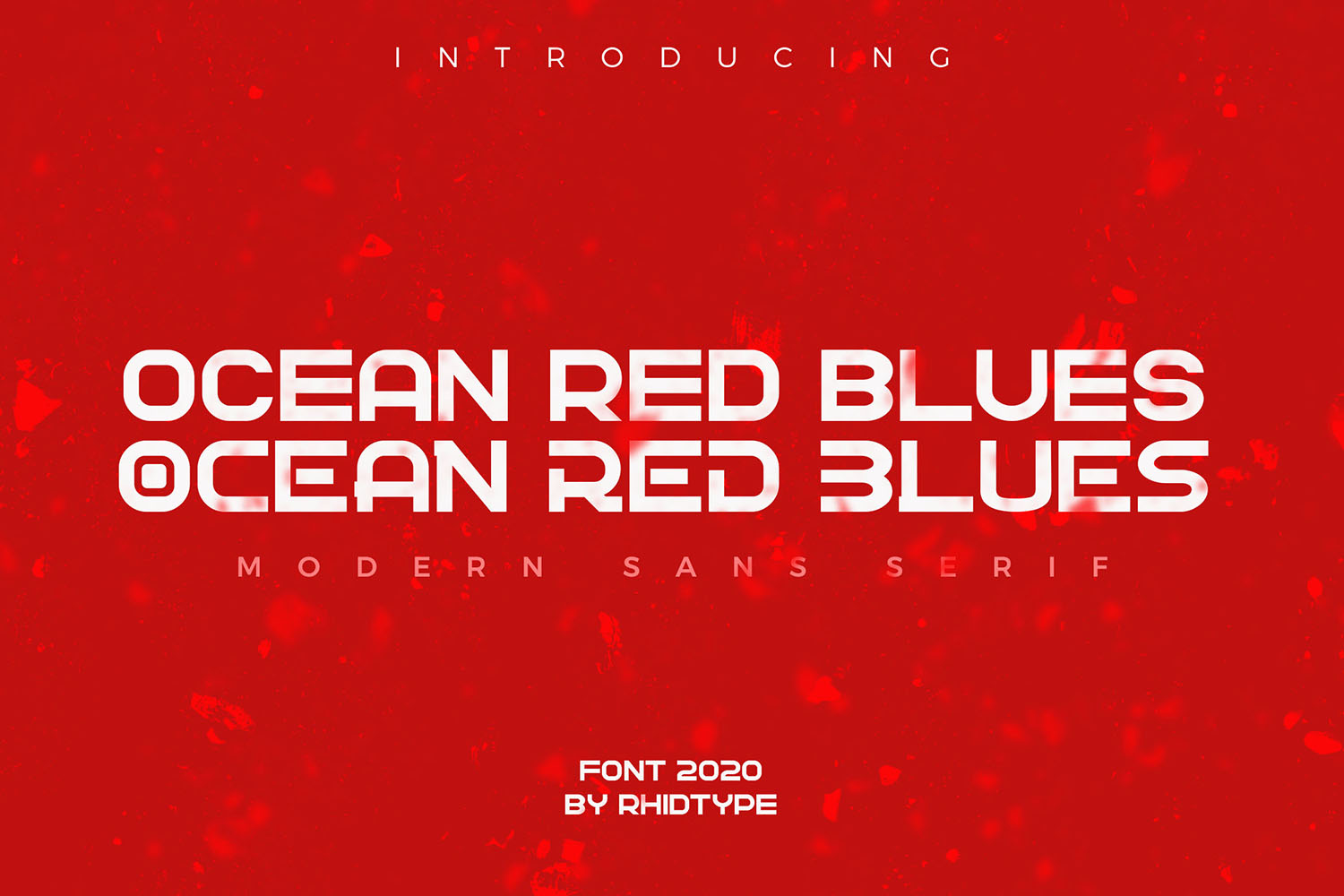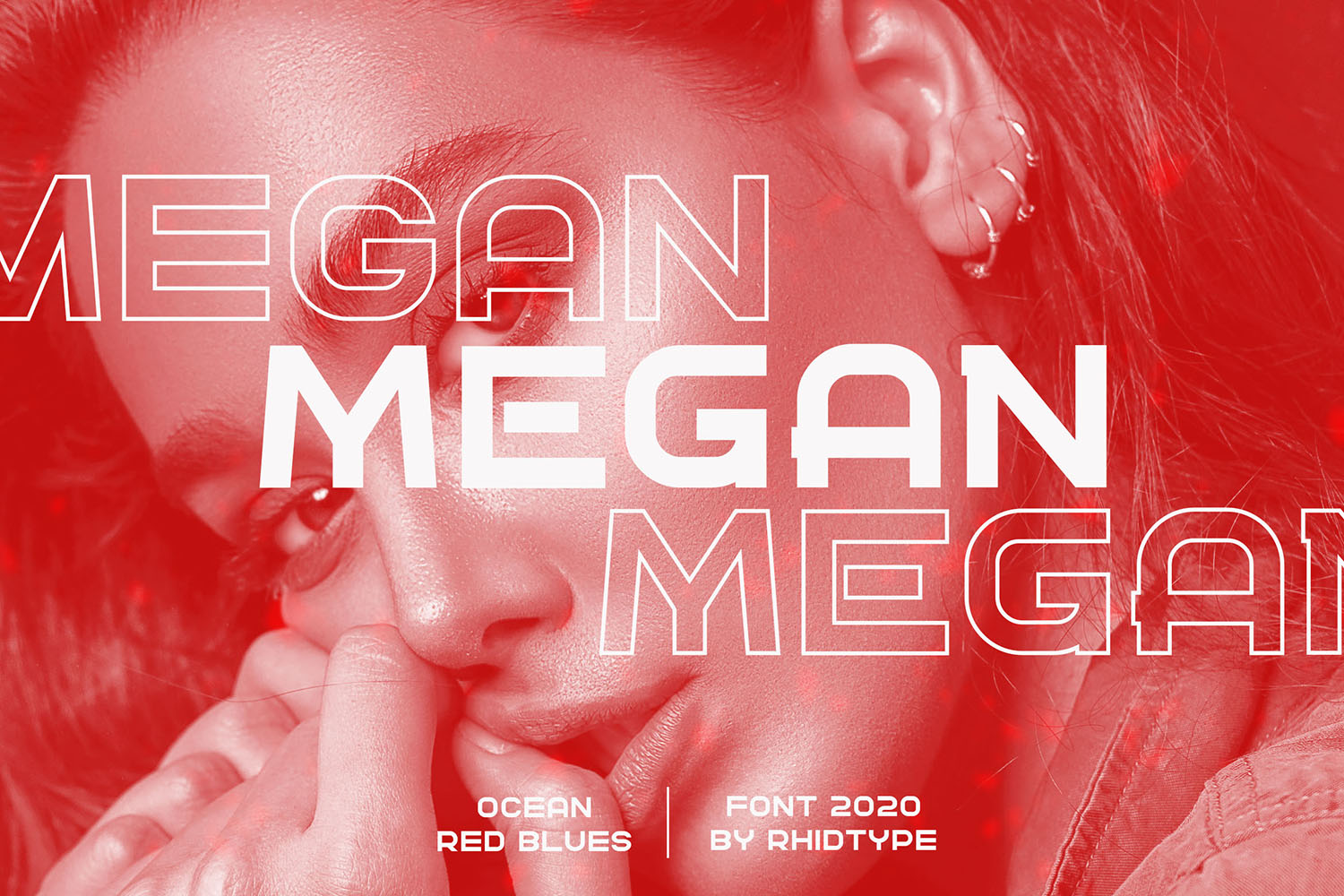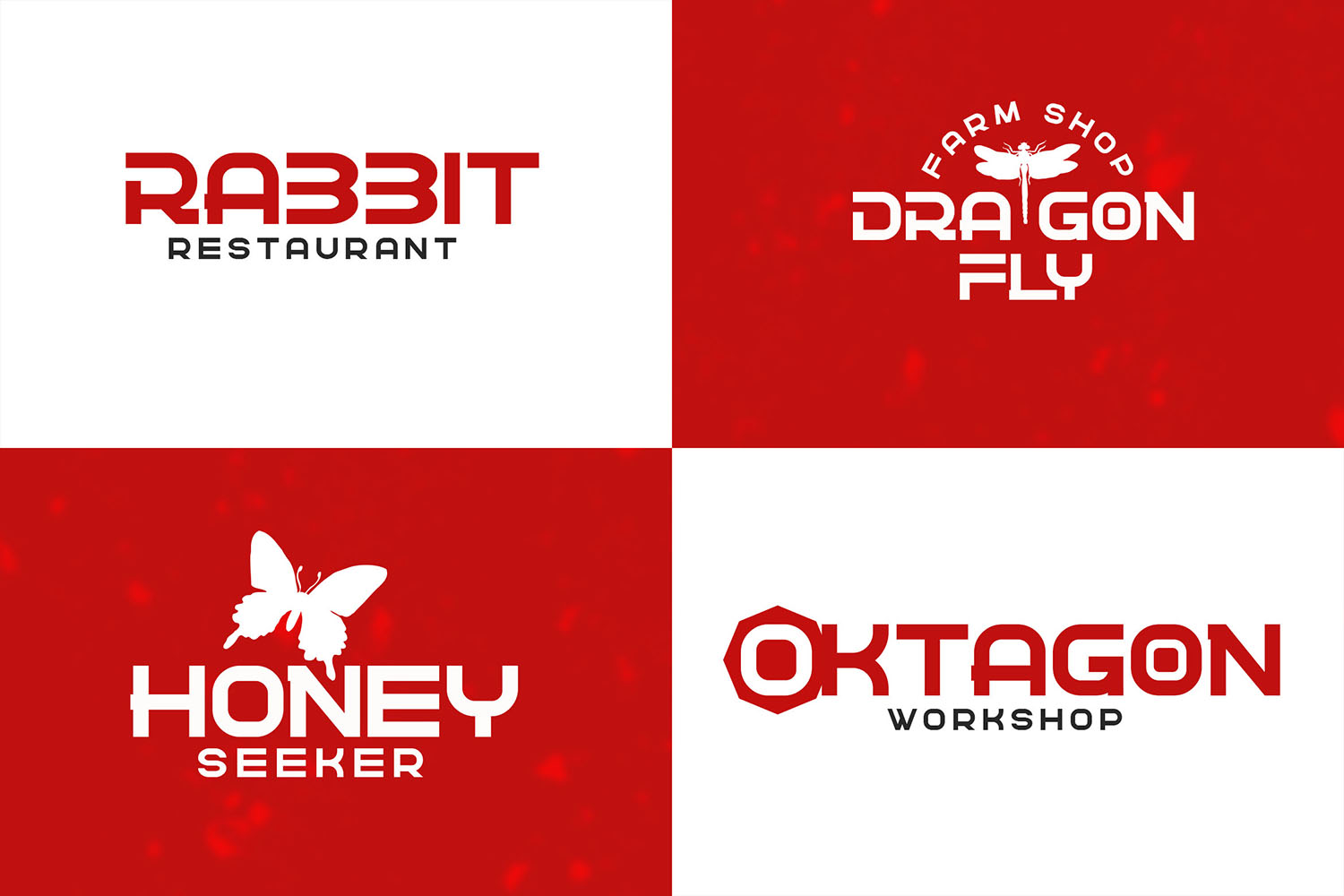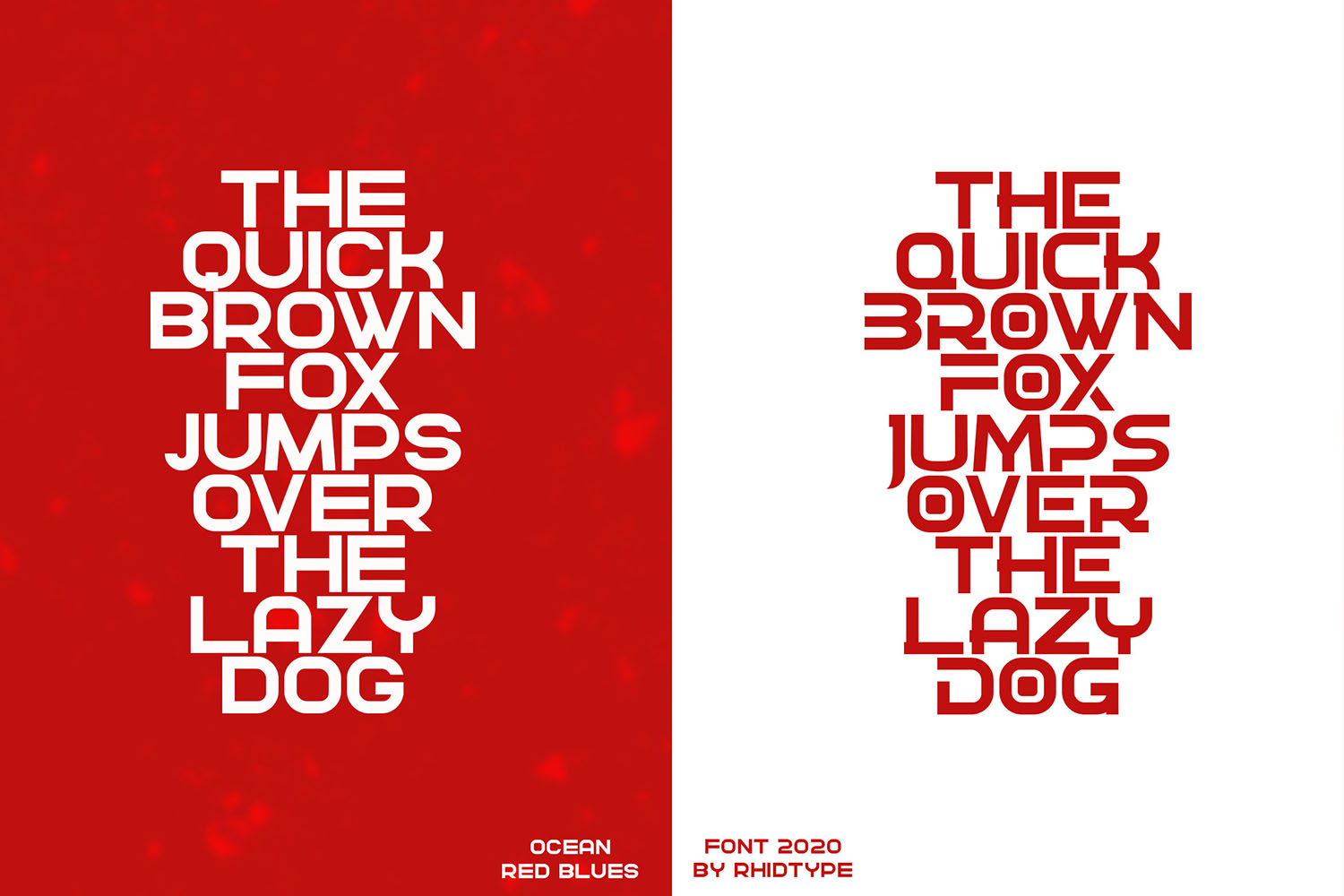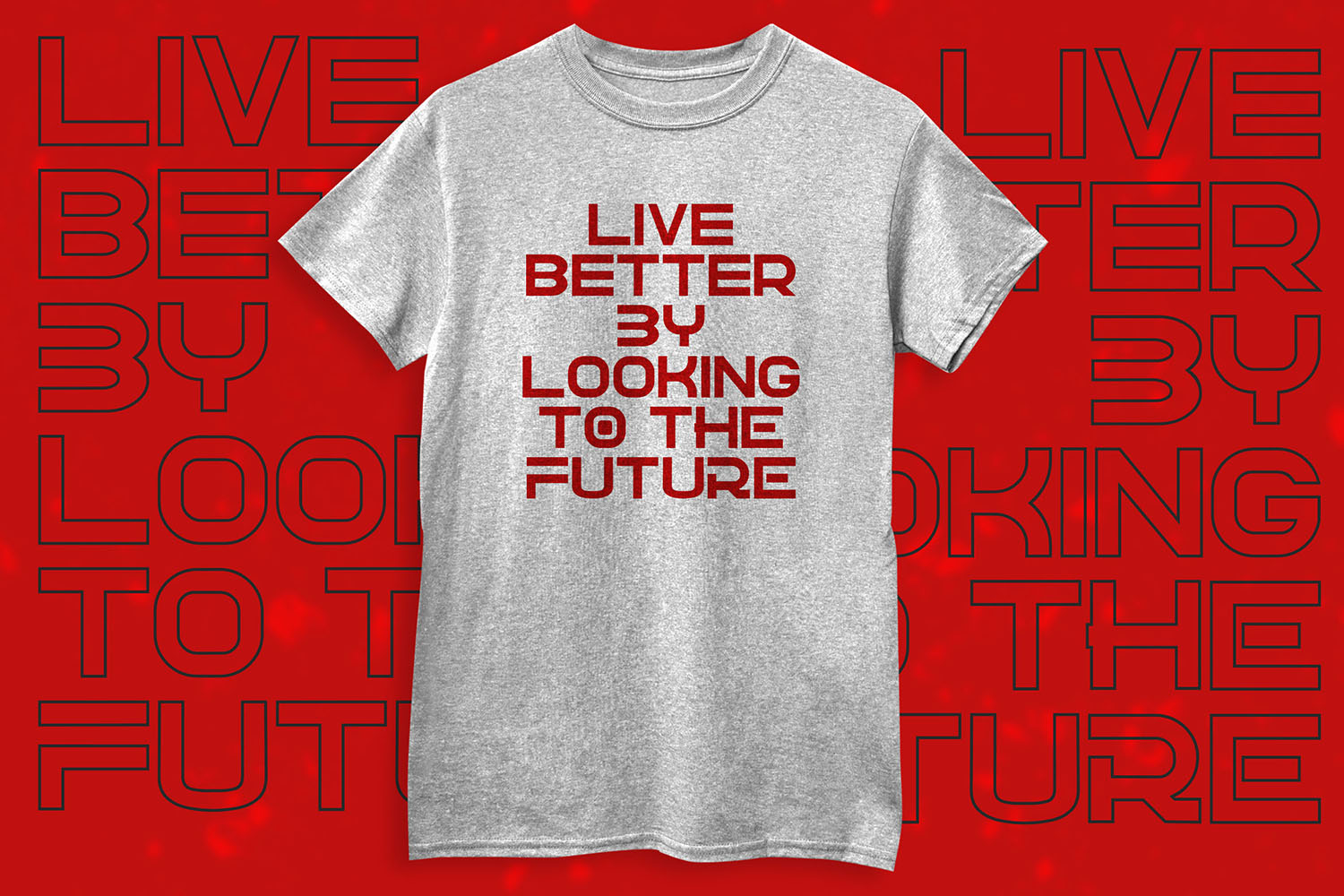
Ocean Red Blues Free Font
Ocean Red Blues Free Font is a clean and minimalist sans-serif font that adds a touch of elegance to any design. This incredibly versatile font seamlessly complements a diverse range of projects, taking them to new heights of sophistication and style. This free typeface was designed by a talentedย RHIDTYPE STUDIO. If you like it donโ€™t forget to check out the full version.